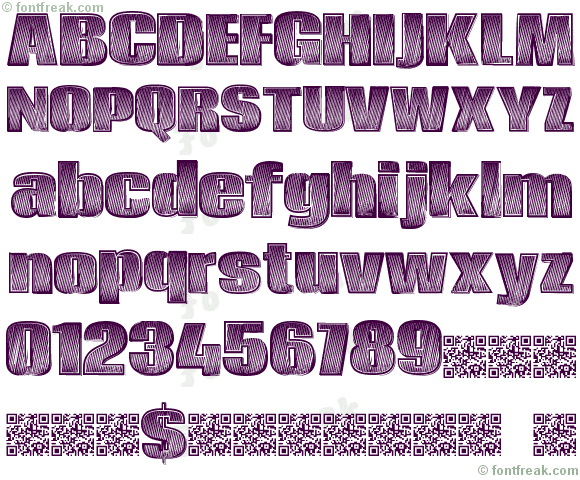
EnergyDrink
About EnergyDrink
EnergyDrink by XEROGRAPHER FONTS is a dynamic display font that embodies a sense of vitality and motion, making it an ideal choice for projects that require a punchy, energetic aesthetic. This font features a bold, slightly rough texture that adds a layer of depth and character. The stroke weight is consistent, with a moderate contrast that enhances legibility while still maintaining a playful vibe. The letters are well-spaced, allowing for clarity and ease of reading, which is essential in high-energy contexts.
This font excels in various applications, including vibrant movie posters, eye-catching advertisements for energy drinks, and lively event flyers. Its unique style makes it suitable for branding that aims to convey excitement and a sense of adventure, appealing particularly to the youth market. Small business owners looking to promote their energetic products or services will find this font particularly useful, as it captures attention and communicates a spirited brand message.
The target audience for the EnergyDrink font includes graphic designers, content creators, and marketing professionals who seek to inject a sense of fun and dynamism into their work. Whether you're designing for a sports event, a music festival, or a trendy café, this font can effectively convey the enthusiasm and energy that these settings demand.
What sets the EnergyDrink font apart is its ability to evoke emotion and movement through typography. Its rough, textured appearance not only grabs attention but also creates a memorable visual impact. The EnergyDrink font free download offers an accessible way for creatives to utilize this standout typeface, ensuring that projects resonate with a youthful and energetic spirit. Embrace the lively essence of EnergyDrink and elevate your designs with this exceptional font.